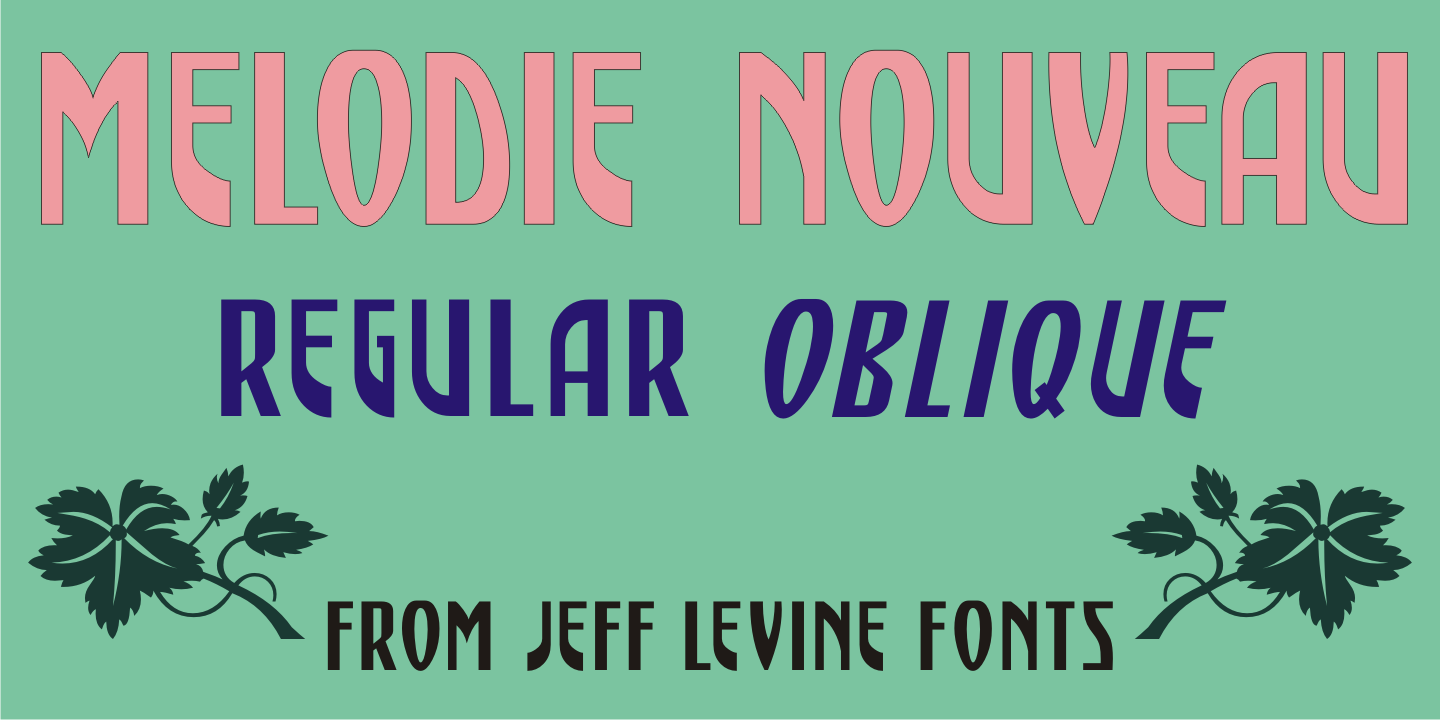
Melodie Nouveau JNL Font is a charming and distinctive typeface that beautifully captures the essence of early 20th-century Art Nouveau design. Its elegant, flowing lines and decorative touches make it an excellent choice for projects seeking a sophisticated, vintage, and artistic flair. Imagine it gracing period-piece movie posters, elegant branding for historical societies or luxury goods, sophisticated restaurant menus, art deco-inspired invitations, or decorative headers for literary publications. This font excels at conveying a sense of classic beauty, craftsmanship, and a bygone era of design, ensuring your message stands out with an air of refined artistry and timeless appeal. It's particularly effective when you want to evoke nostalgia while maintaining a high level of elegance and legibility.
What makes Melodie Nouveau JNL Font truly exciting is its faithful rendition of the Art Nouveau movement's aesthetic, bringing its organic curves and decorative flourishes to modern digital platforms. It offers a unique blend of ornate detail and graceful readability, making it a powerful tool for creating visually rich and impactful designs. Each character feels meticulously crafted, contributing to a cohesive and enchanting visual experience. This font isn't just about text; it's about art and history intertwining to create a beautiful narrative. Melodie Nouveau JNL Font injects a sense of elegance, historical depth, and artistic sophistication into your content, making it an ideal choice for creatives who aim to project a refined and imaginative image.
The Melodie Nouveau JNL Font family often focuses on delivering its distinctive display style with optimal impact. You'll typically find it available in a strong, regular weight that best showcases its unique design elements. Some versions might include stylistic alternatives for certain characters or ligatures that further enhance its decorative and handcrafted appearance, allowing for even more customized typographic compositions. The comprehensive character set generally covers standard Latin characters, numbers, and a selection of punctuation, ensuring that Melodie Nouveau JNL Font Free Download is suitable for a wide variety of creative and commercial applications. Its memorable and artistic presence ensures that any project featuring Melodie Nouveau JNL Font will leave a strong, lasting impression.